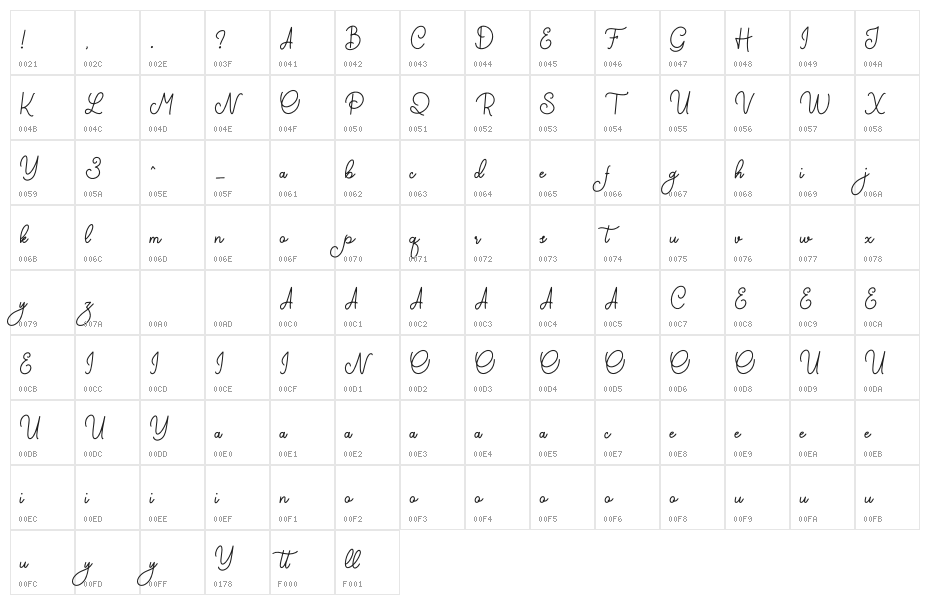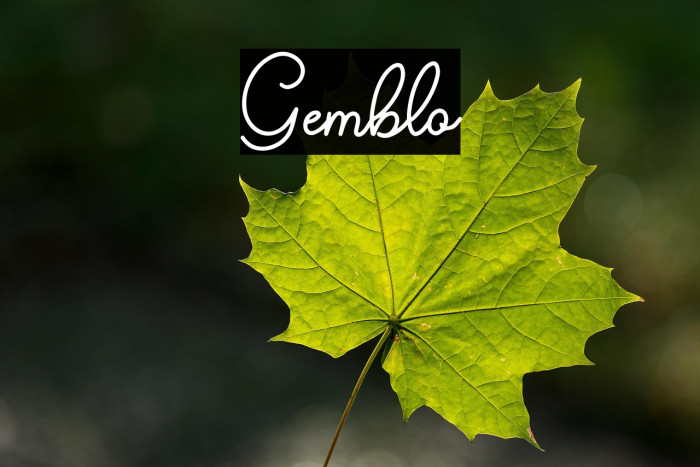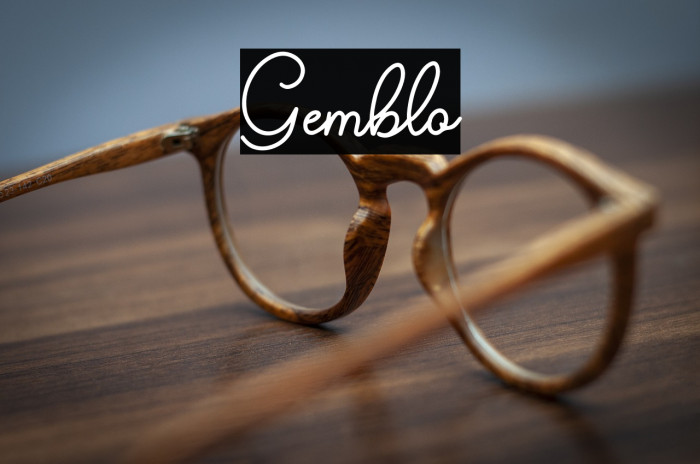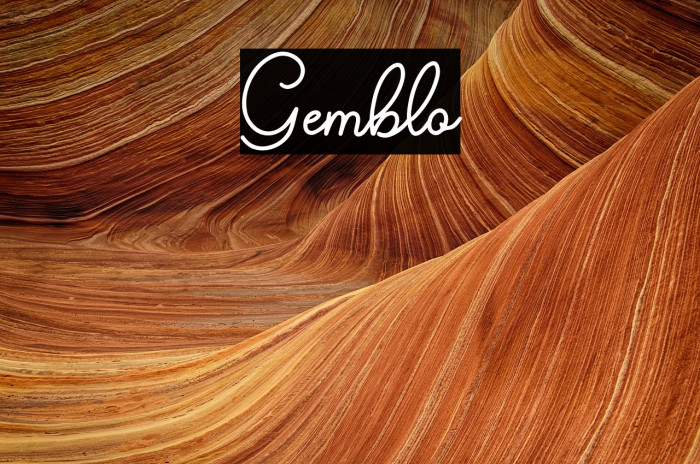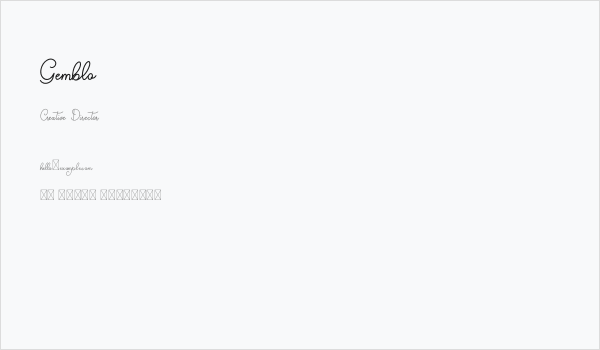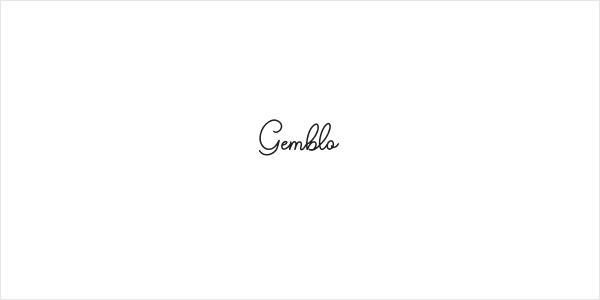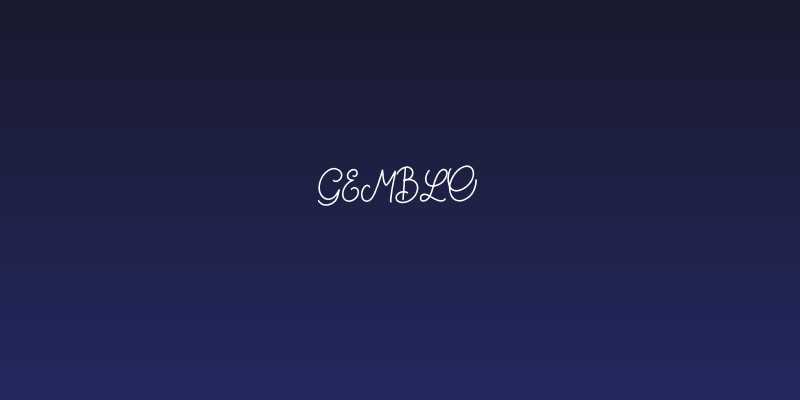
Gemblo Font
Gemblo Description
This elegant script font features flowing, interconnected letters that evoke a sense of sophistication and grace. The uppercase letters are tall and slightly slanted, with delicate loops and curves that add a touch of flair. The lowercase letters maintain a consistent style, with smooth transitions and rounded edges that enhance readability. The font's overall appearance is both classic and modern, making it versatile for various design needs. Its cursive nature suggests a handwritten quality, perfect for adding a personal touch to any project.
A graceful script font with flowing, interconnected letters and a modern classic appeal from Regular fonts.
- Proposed Projects: Ideal for wedding invitations, elegant branding, personal stationery, and artistic quotes.
- Overall Style: Classic
- Use Case: Logos, Invitations, Personal stationery